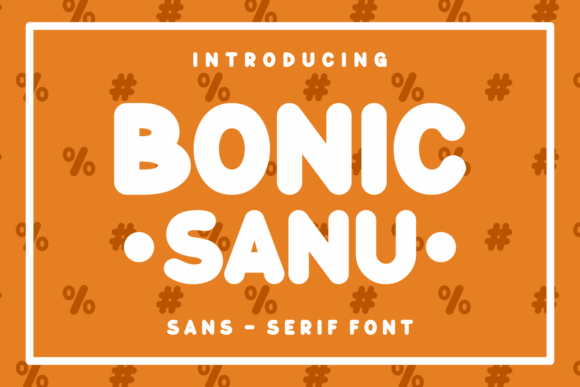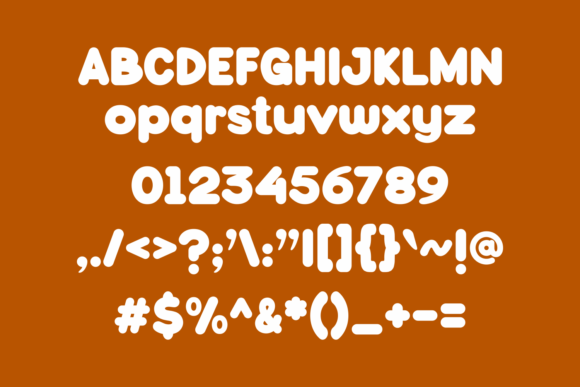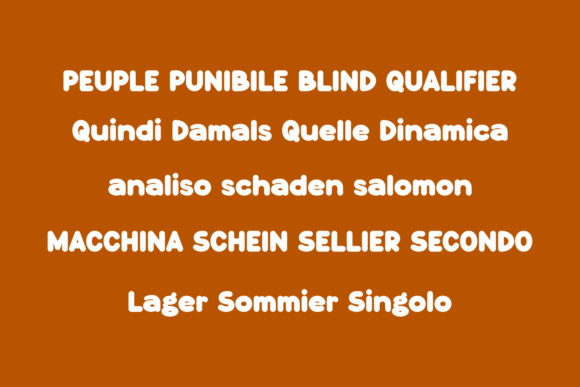
Bonic Sanu Font: The Friendly and Cute Sans Serif Font You Need
In the world of typography, fonts play a crucial role in conveying messages, evoking emotions, and creating visual identities. For designers, crafters, and creatives, finding the right font can make all the difference in elevating their work. If you’re on the hunt for a friendly and cute sans serif font that can add a touch of personality to your creations, look no further than Bonic Sanu.
What is Bonic Sanu Font?
Bonic Sanu is a delightful sans serif font that exudes warmth and approachability. Its clean lines, rounded edges, and balanced proportions make it an excellent choice for a wide range of design projects. Whether you’re working on a logo, branding materials, social media graphics, or craft projects, Bonic Sanu is sure to bring a smile to your audience’s faces.
Key Features of Bonic Sanu Font
- Friendly and Cute: Bonic Sanu’s design is centered around being friendly and approachable. Its soft edges and curves create a sense of warmth, making it perfect for designs that require a personal touch.
- Sans Serif: The font’s sans serif design ensures that your text remains clean and easy to read, even at smaller sizes.
- Versatile: Bonic Sanu can be used for a wide range of projects, from digital designs to print materials, and even craft projects like handmade cards and invitations.
- Elegant and Simple: Despite its playful nature, Bonic Sanu maintains an air of elegance and simplicity, making it suitable for designs that require a level of sophistication.
Why You Need Bonic Sanu Font in Your Library
No matter the topic or theme of your design project, Bonic Sanu has the potential to elevate your work. Here are a few reasons why you should consider adding it to your font library:
- Emotional Connection: Bonic Sanu’s friendly design helps create an instant emotional connection with your audience. This is particularly useful for brands that want to appear approachable and customer-centric.
- Creativity and Playfulness: The font’s playful nature makes it perfect for designs that require a touch of whimsy and creativity. Whether you’re working on a children’s book, a craft project, or a social media graphic, Bonic Sanu can add a dash of fun and personality.
- Readability: Bonic Sanu’s clear and balanced design ensures that your text remains readable, even at smaller sizes. This makes it an excellent choice for body text, captions, and other applications where legibility is crucial.
How to Use Bonic Sanu Font
Bonic Sanu is an incredibly versatile font that can be used in a variety of design projects. Here are a few ideas to get you started:
- Branding and Logo Design: Use Bonic Sanu to create a friendly and approachable brand identity that resonates with your target audience.
- Social Media Graphics: Add a touch of personality to your social media graphics, posts, and stories with Bonic Sanu.
- Craft Projects: Use Bonic Sanu for handmade cards, invitations, and other craft projects that require a personal touch.
- Digital Designs: Bonic Sanu is perfect for digital designs, including website headers, email newsletters, and digital advertisements.
In conclusion, Bonic Sanu is a friendly and cute sans serif font that can add a touch of personality to your design projects. Its versatility, readability, and emotional appeal make it an excellent addition to any font library. Whether you’re a designer, crafter, or creative, Bonic Sanu is sure to become a go-to font for your future projects.